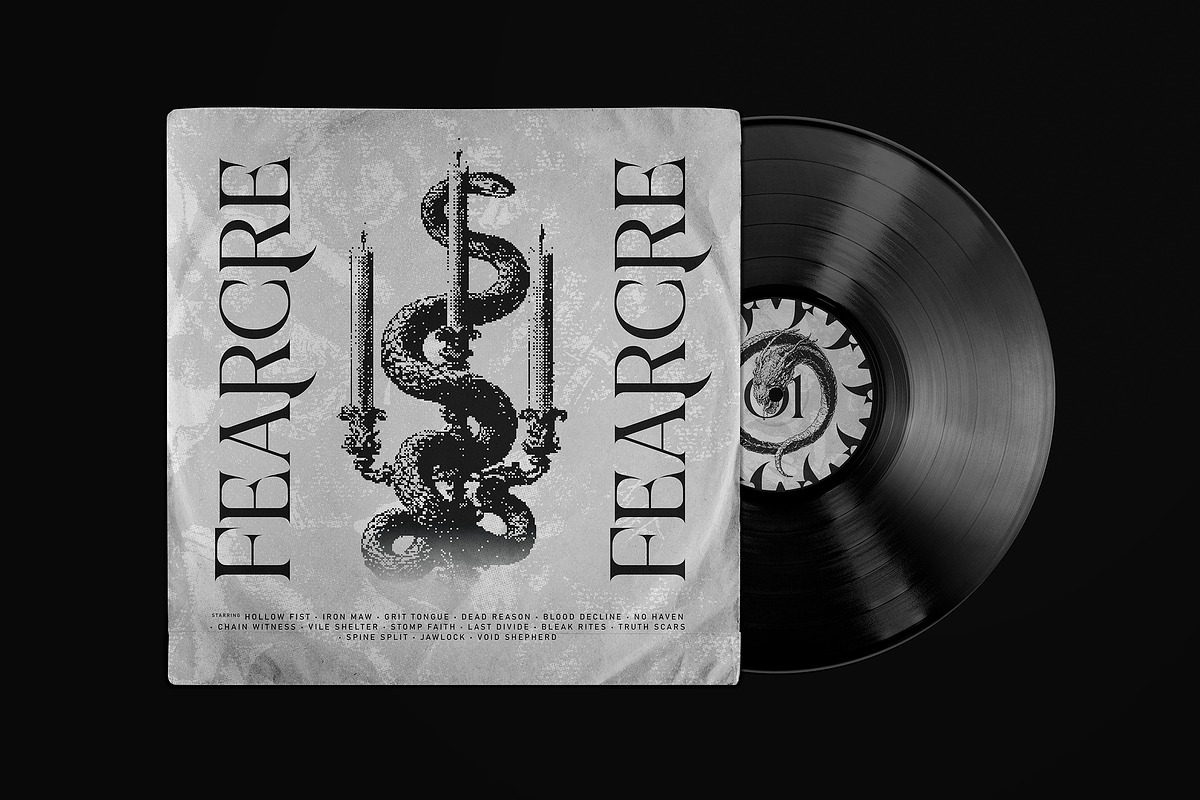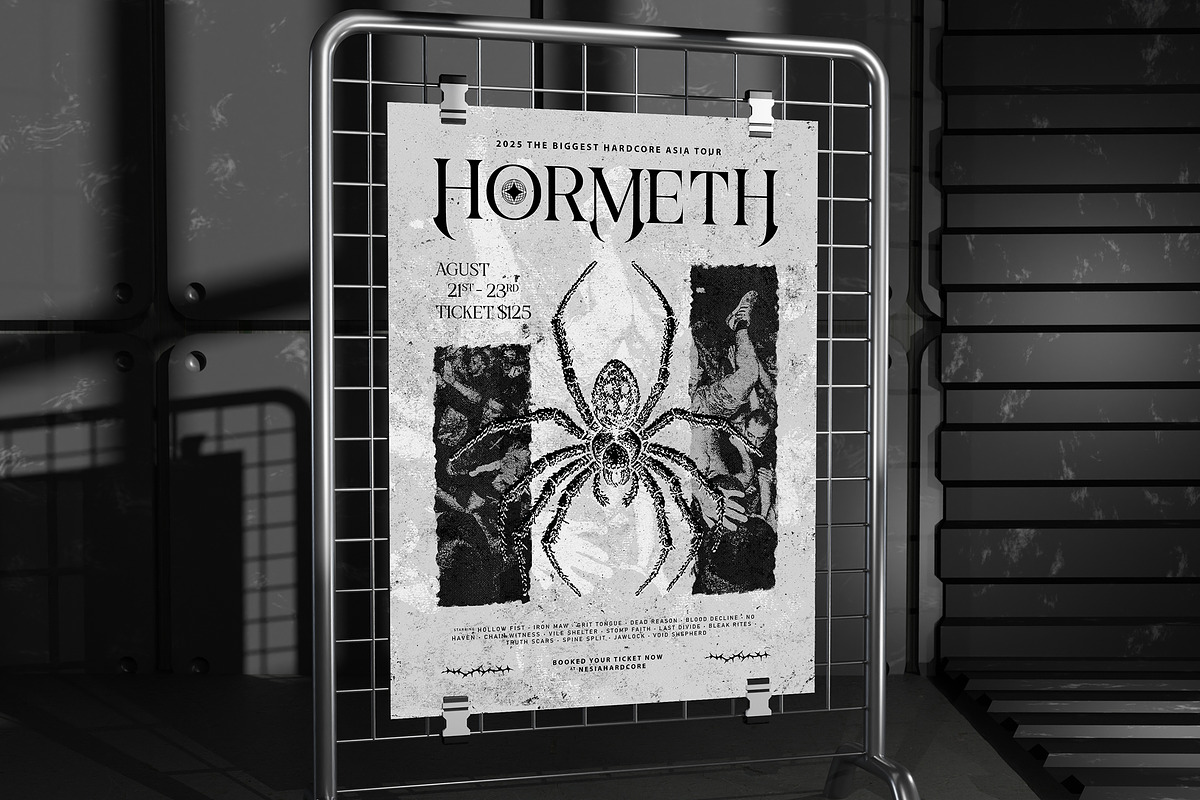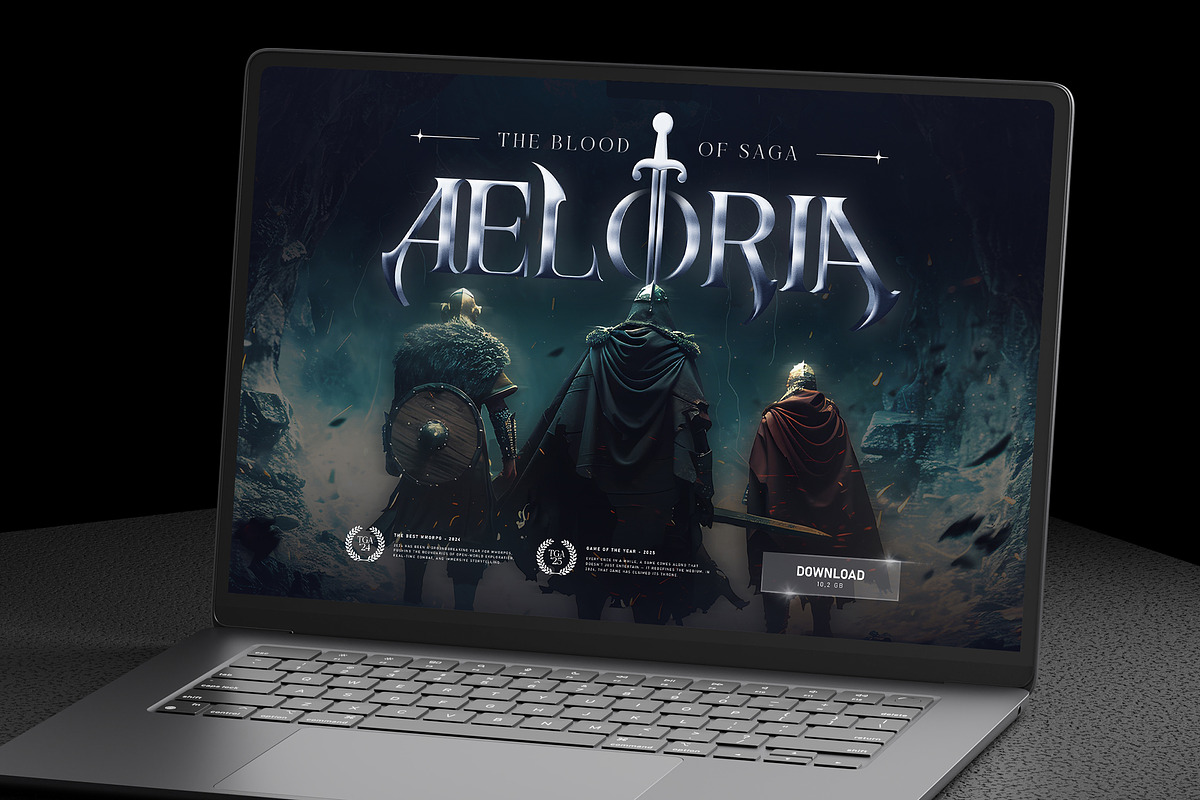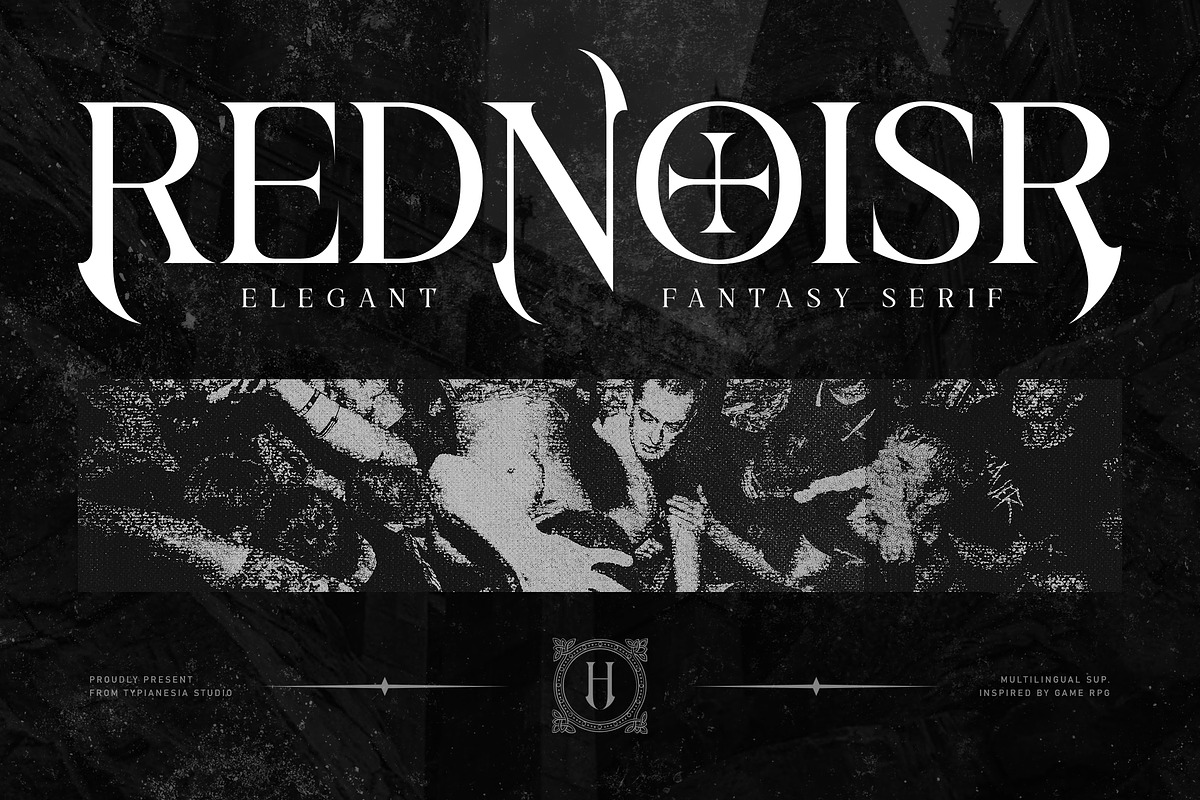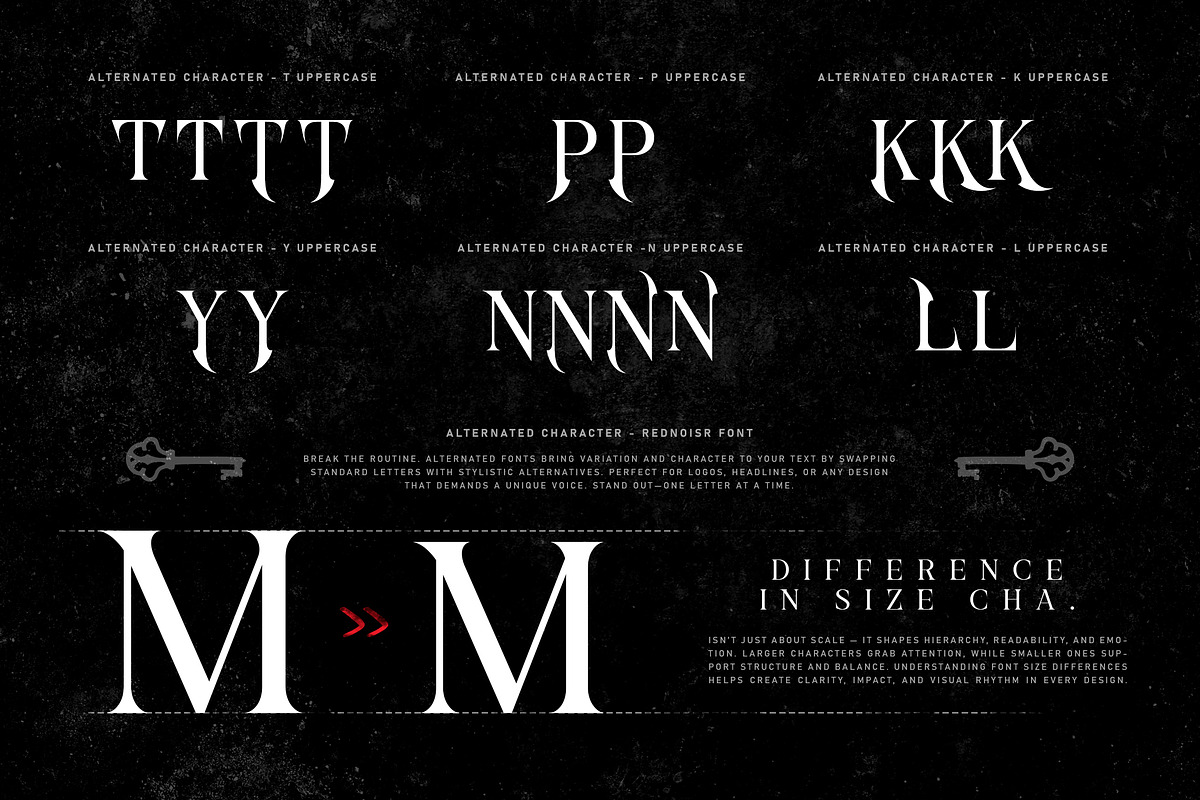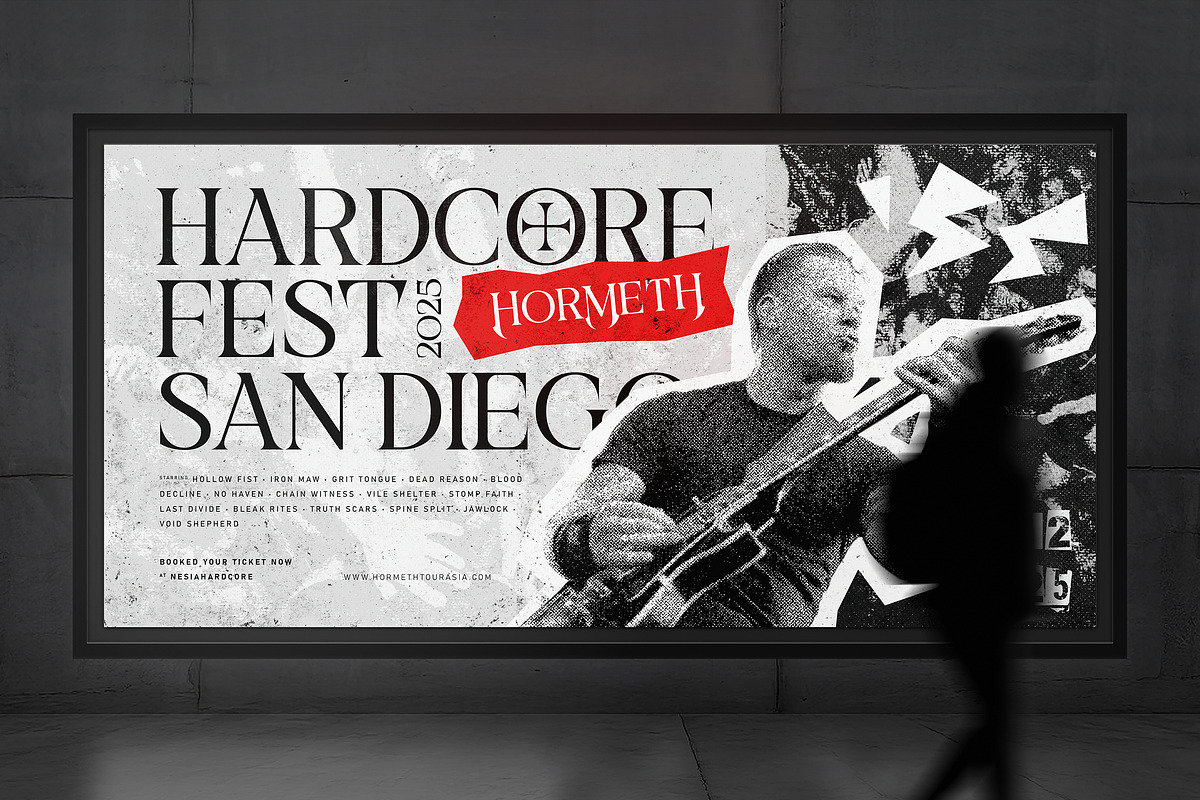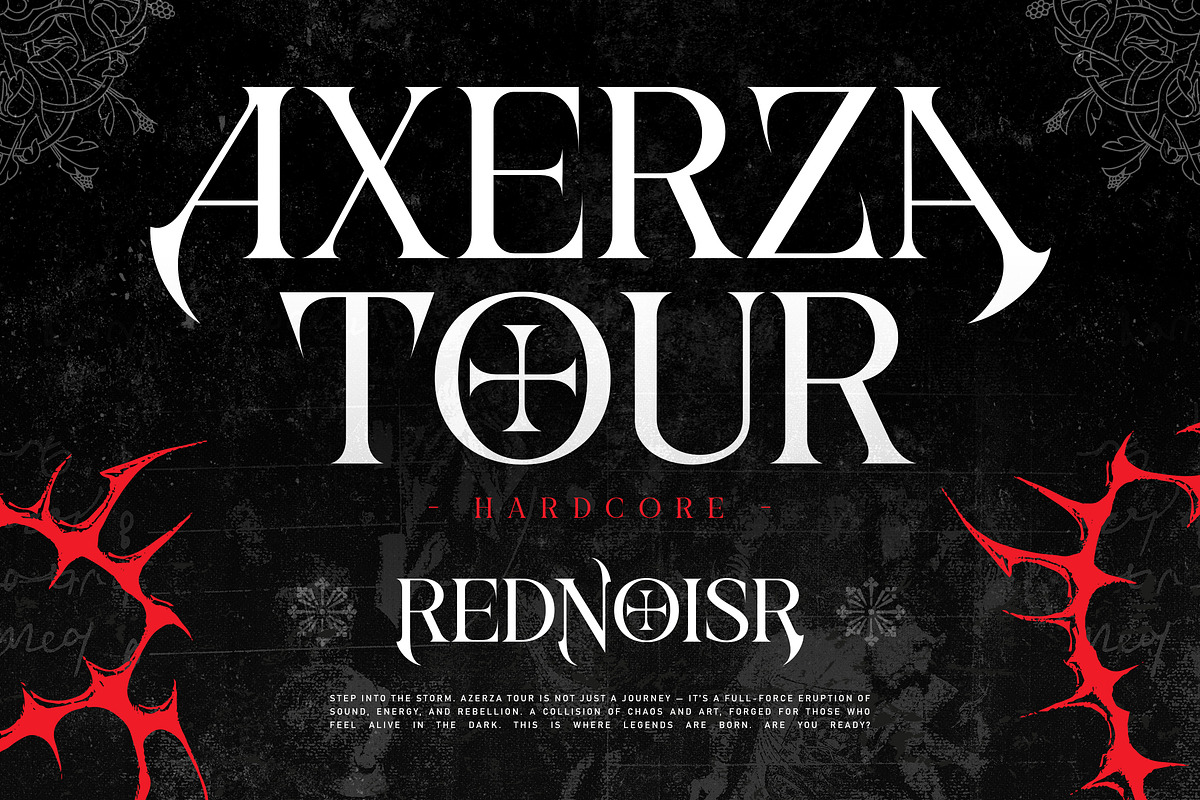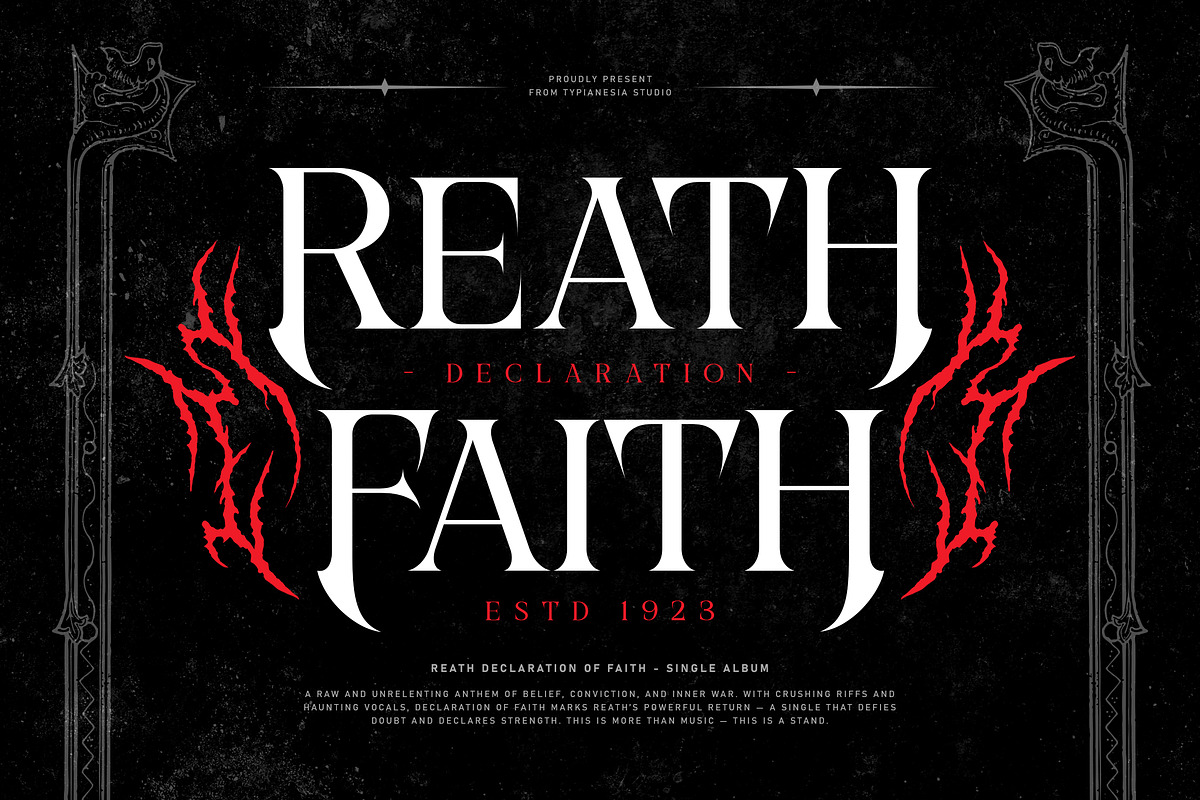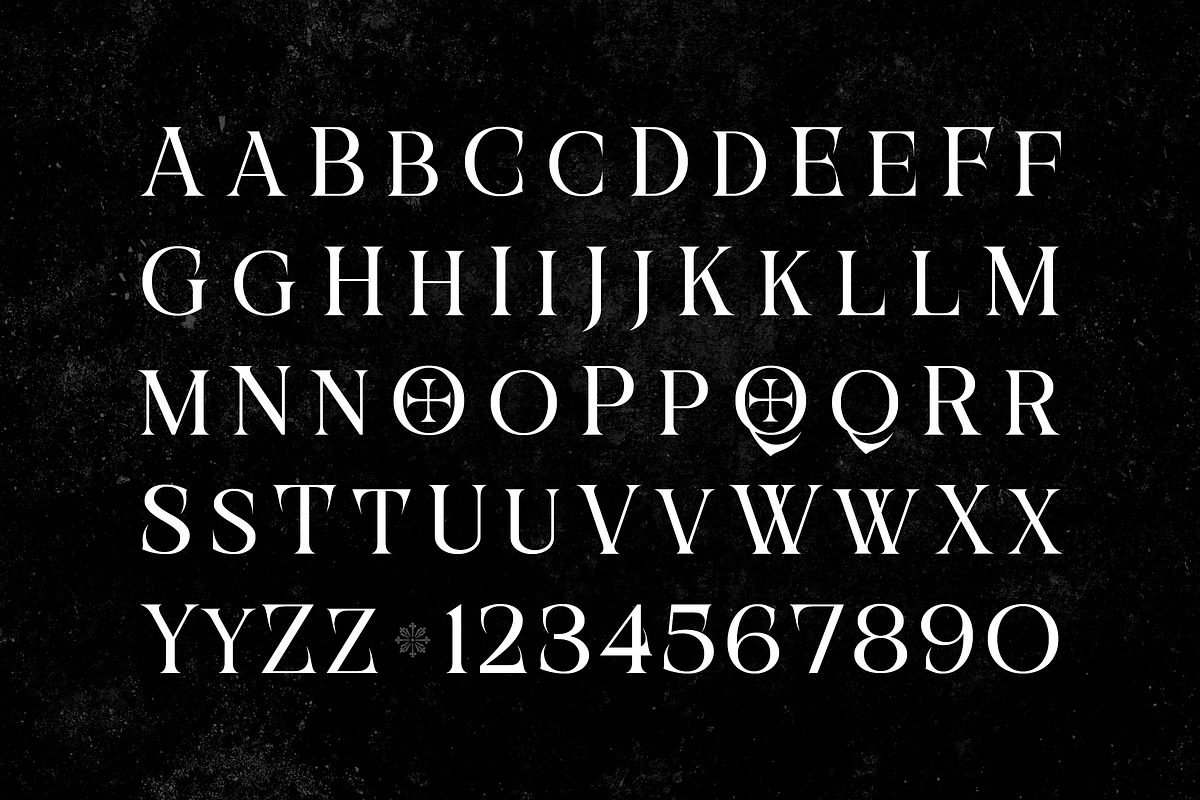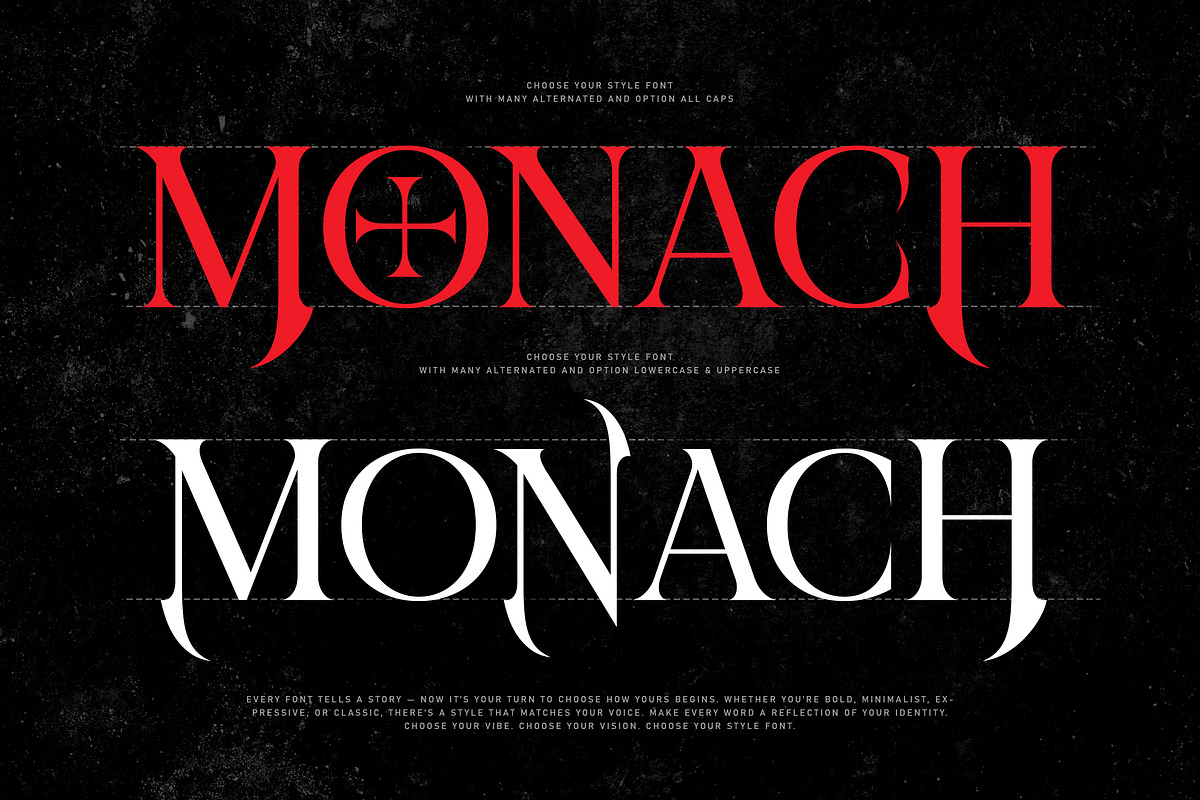
Rednoisr - Elegant Fantasy Serif
Rednoisr - Elegant Fantasy Serif Font - Dark Aesthetics Games Display Font
Rednoisr is an elegant fantasy serif font, designed to evoke a sense of mystique and power. Inspired by the rich narratives of RPG games, this multipurpose display typeface features distinctive alternates and striking serifs that command attention. Rednoisr is perfect for projects requiring a unique and impactful visual presence, such as branding projects, fantasy novel covers, game titles, advertising campaign, posters, logo design, album art, event posters for hardcore music festivals, edgy branding and any project. Its dramatic letterforms and versatile character options, including unique alternate uppercase and lowercase letters, allow for immense creative freedom to craft a truly bespoke look. With extensive multilingual support, Rednoisr ensures your message resonates globally. Whether you're aiming for a dark, gothic, or elegant aesthetic, Rednoisr delivers an unforgettable typographic experience that breaks the routine and stands out.